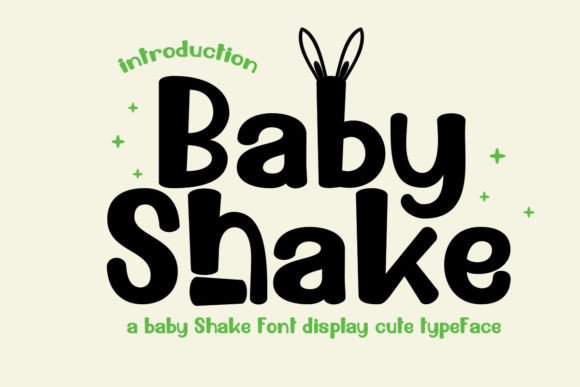
Introducing Baby Shake Font, the ultimate choice for expressing your deepest emotions through written words. Designed by the talented jehansyah251, this adorable font is here to captivate your heart and elevate your communication game to new heights. Say goodbye to plain and boring fonts, and embrace the charm and uniqueness of Baby Shake Font.
With its cute and eye-catching design, Baby Shake Font is guaranteed to grab attention and leave a lasting impression. Whether you're writing a heartfelt love letter, a sweet message to a friend, or creating captivating visual content, this font will effortlessly convey your emotions with its playful and expressive characters.
What sets Baby Shake Font apart is its exceptional versatility. It adds a touch of charm and whimsy to any project, making it the perfect choice for various occasions. Let your creativity run wild as you use this font to create stunning logos, eye-catching social media posts, memorable invitations, or even adorable nursery decorations. The possibilities are truly endless!
Let your words dance on the page and evoke emotions like never before with Baby Shake Font. Its captivating appeal and ability to convey love, joy, and happiness will enchant both you and your audience. Download now and let the magic of Baby Shake Font transform your written expressions into works of art.